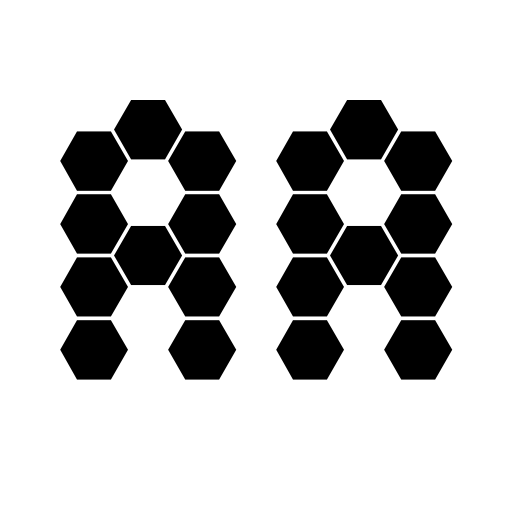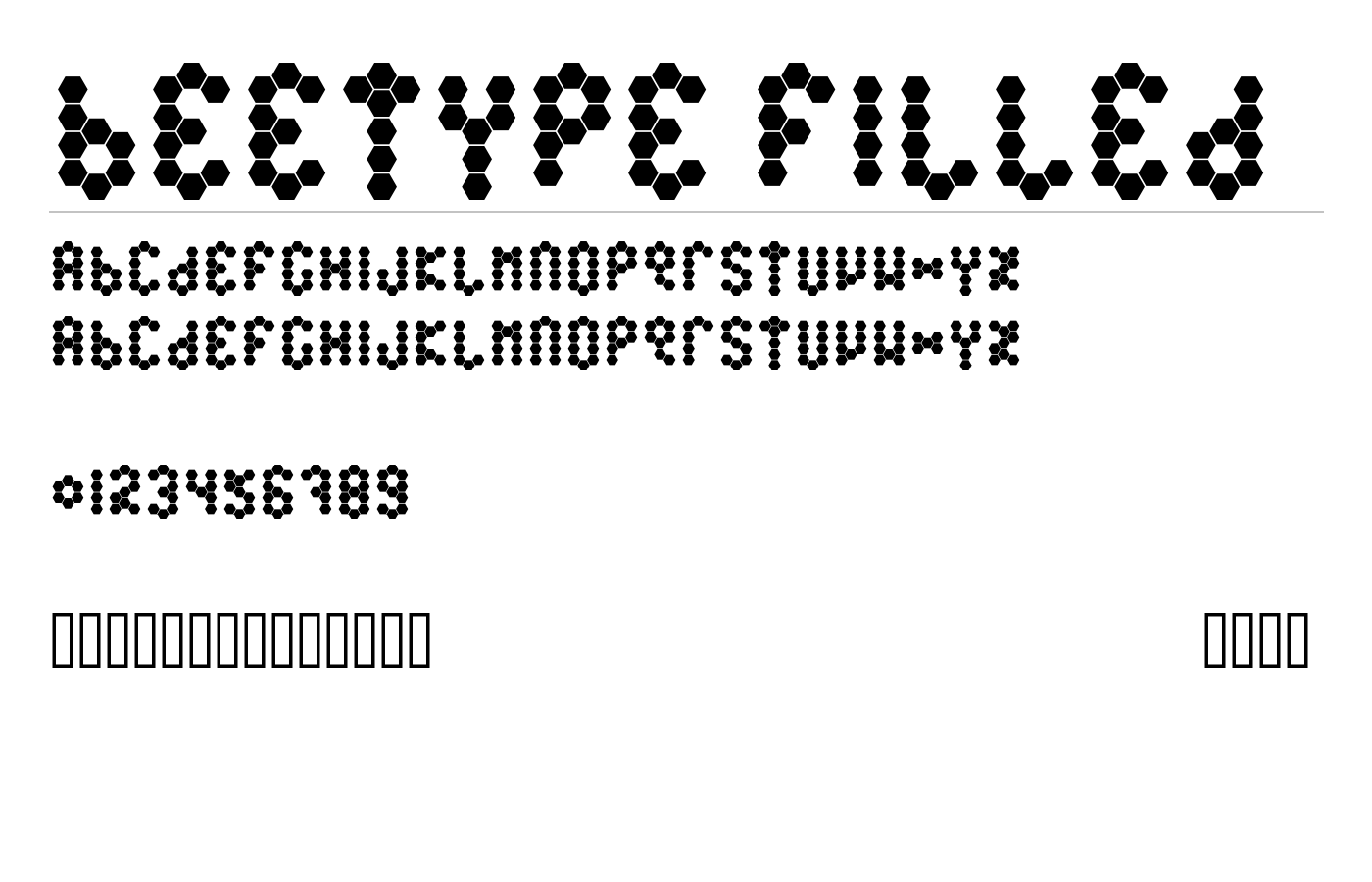
Beetype is a bold, geometric display font inspired by the honeycomb structure, featuring letters constructed from hexagonal shapes that create a unique, pixelated effect. With its strong, modular design and uniform weight, it works best for eye-catching headlines, logos, and playful branding that want to convey creativity and modernity. This font is perfect for projects related to technology, nature, or anything requiring a distinctive, contemporary look.
Beetype Font
About Beetype Font
| Font family | Beetype Font |
| Designer | Adrian Candela |